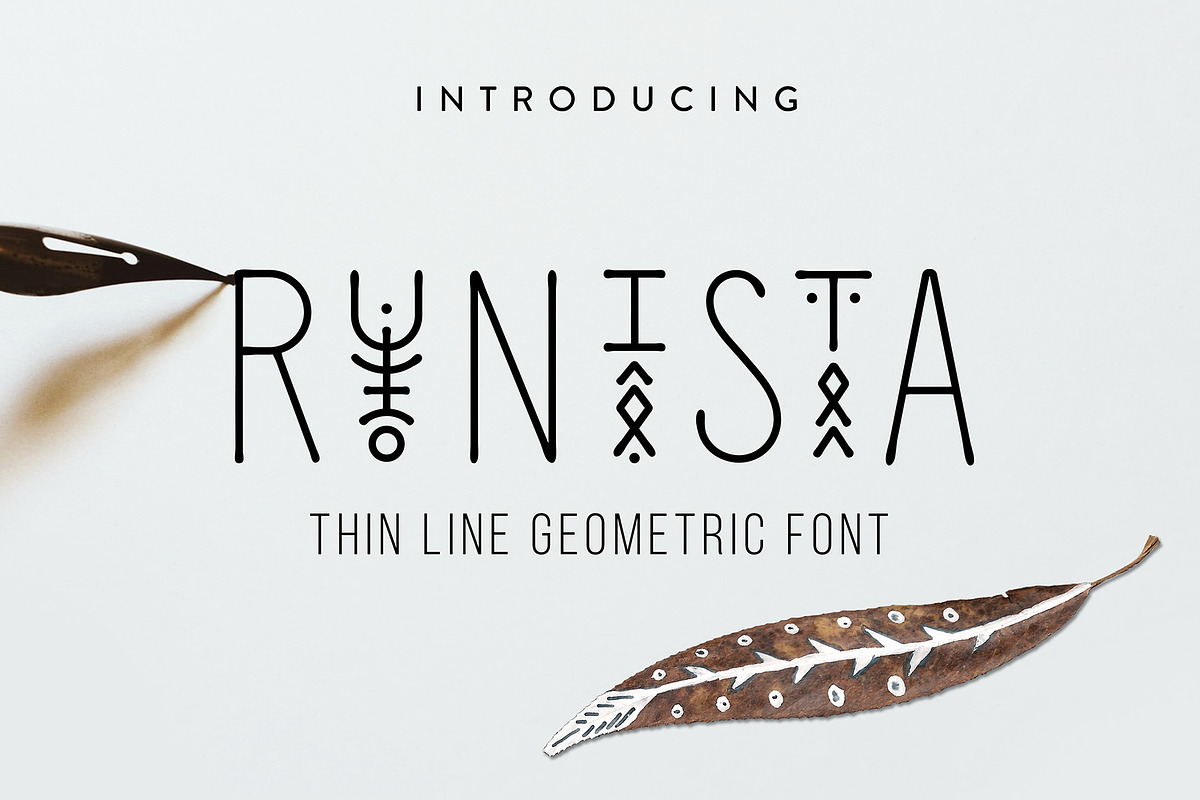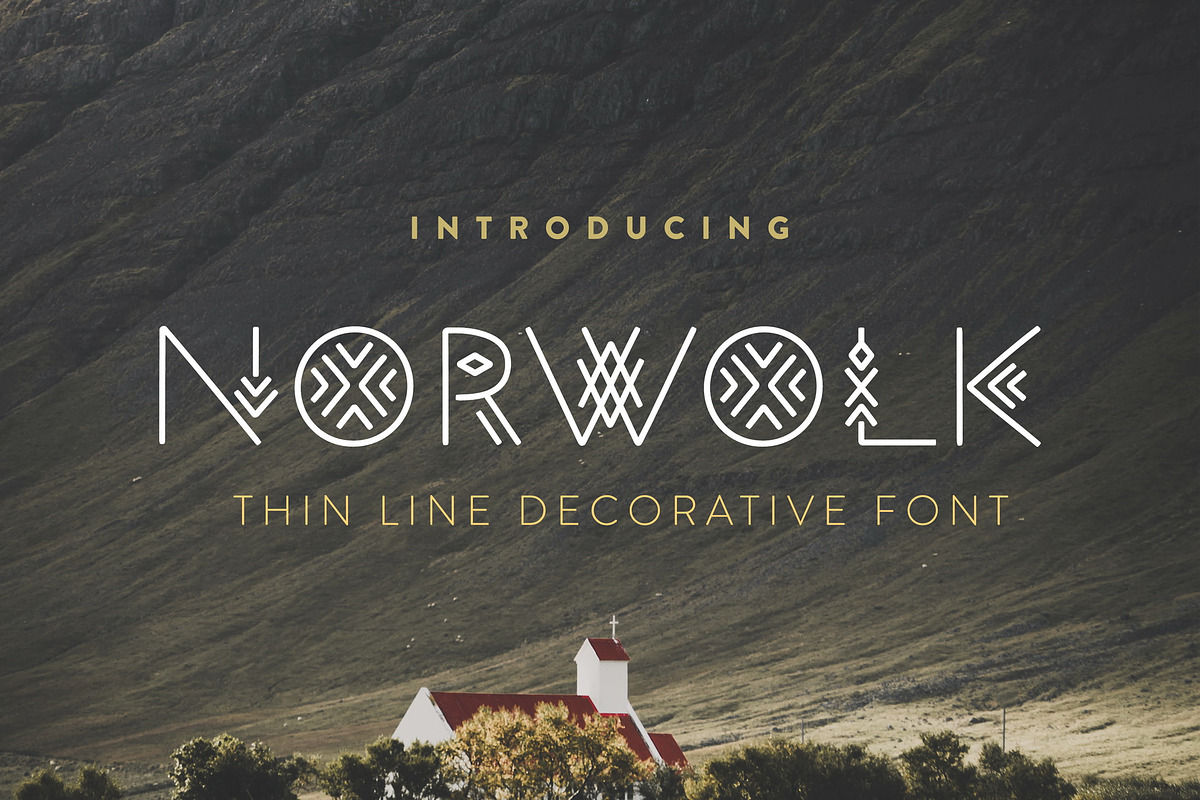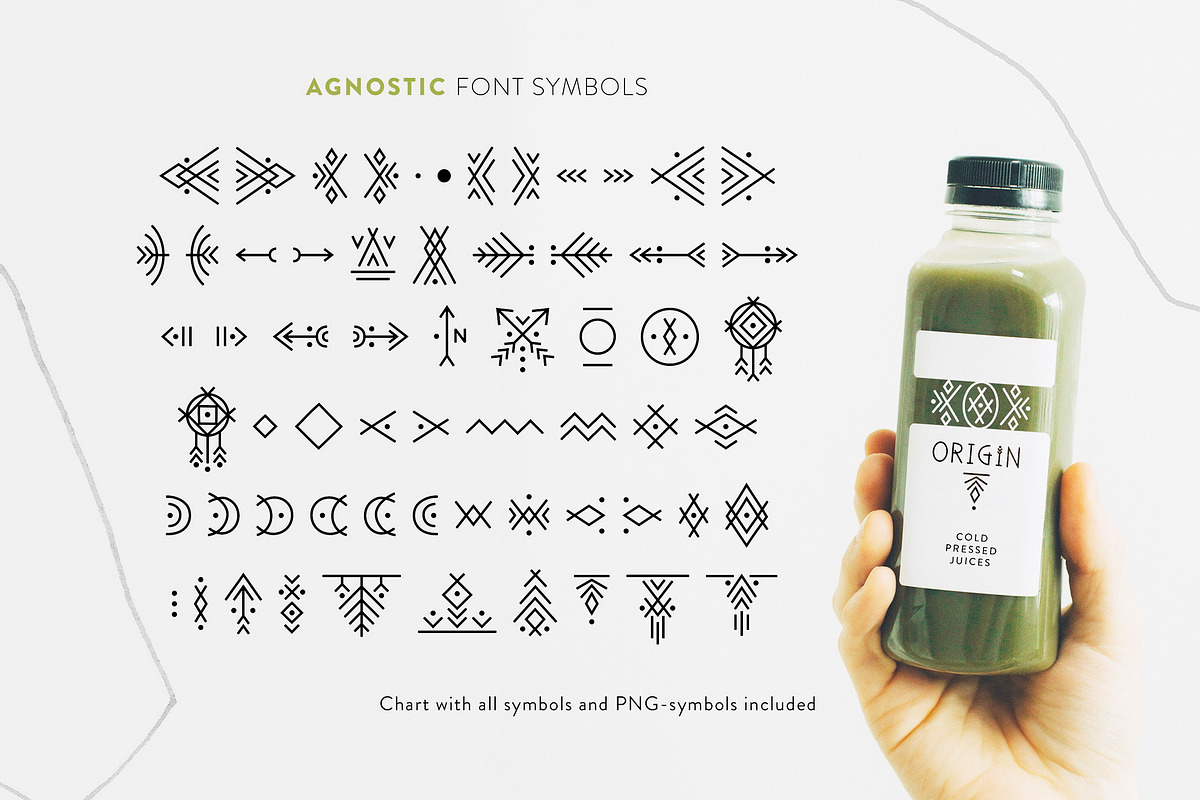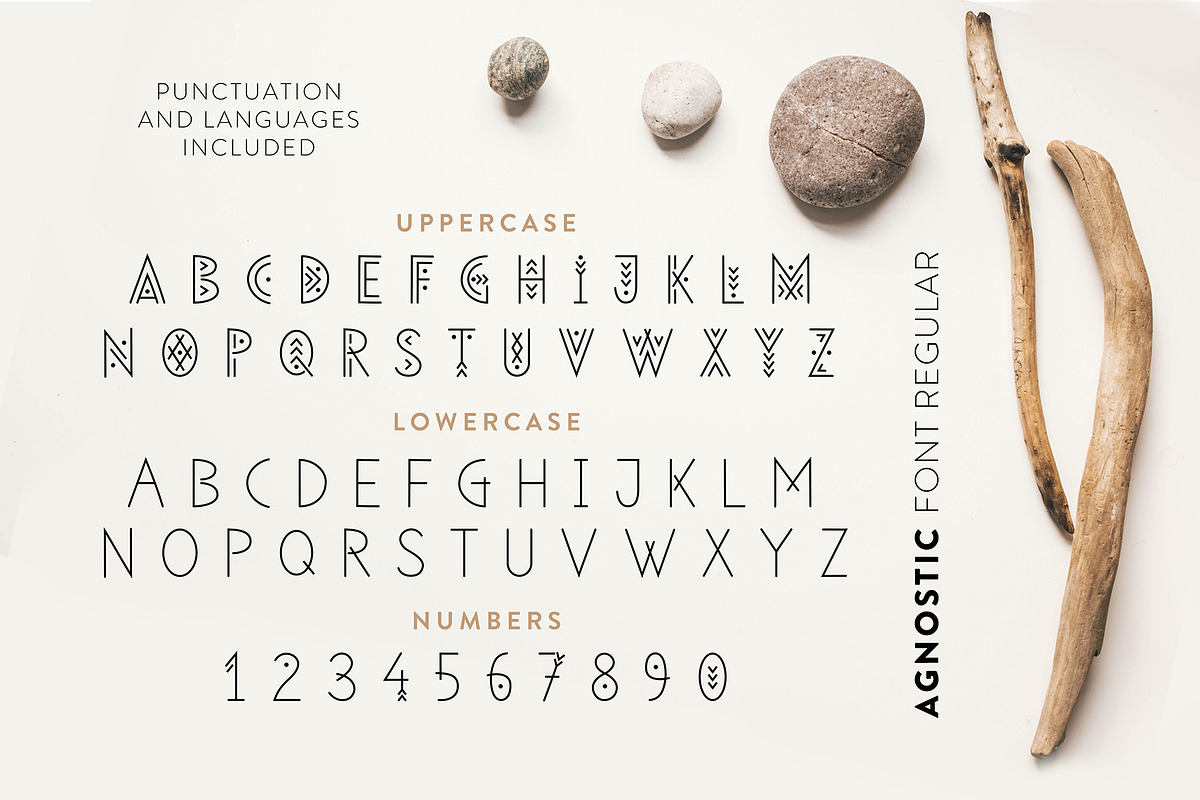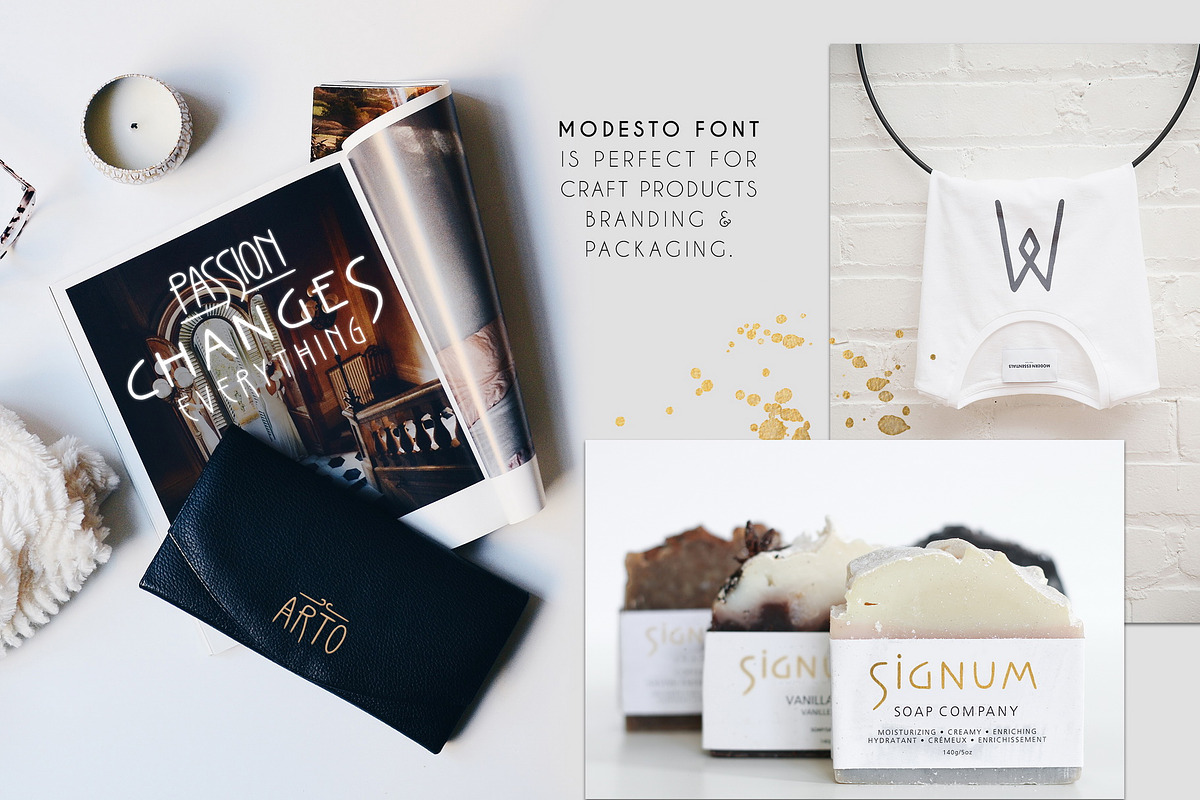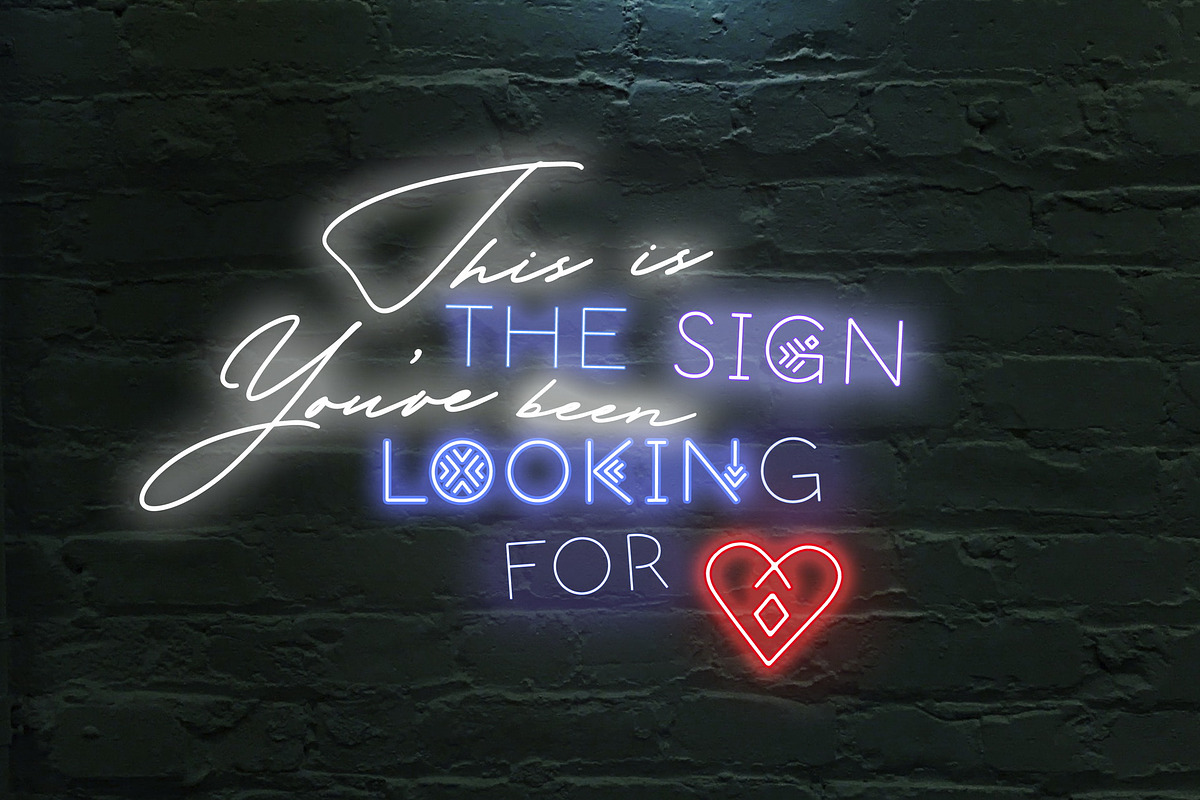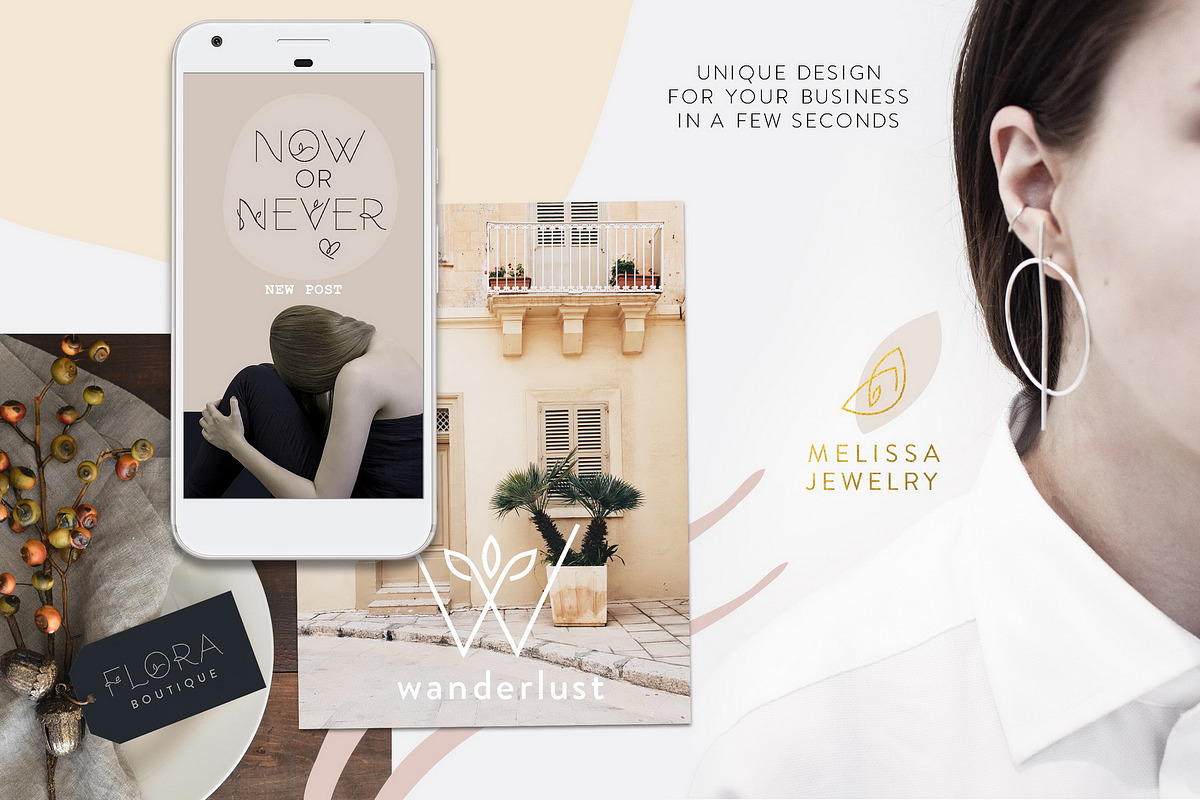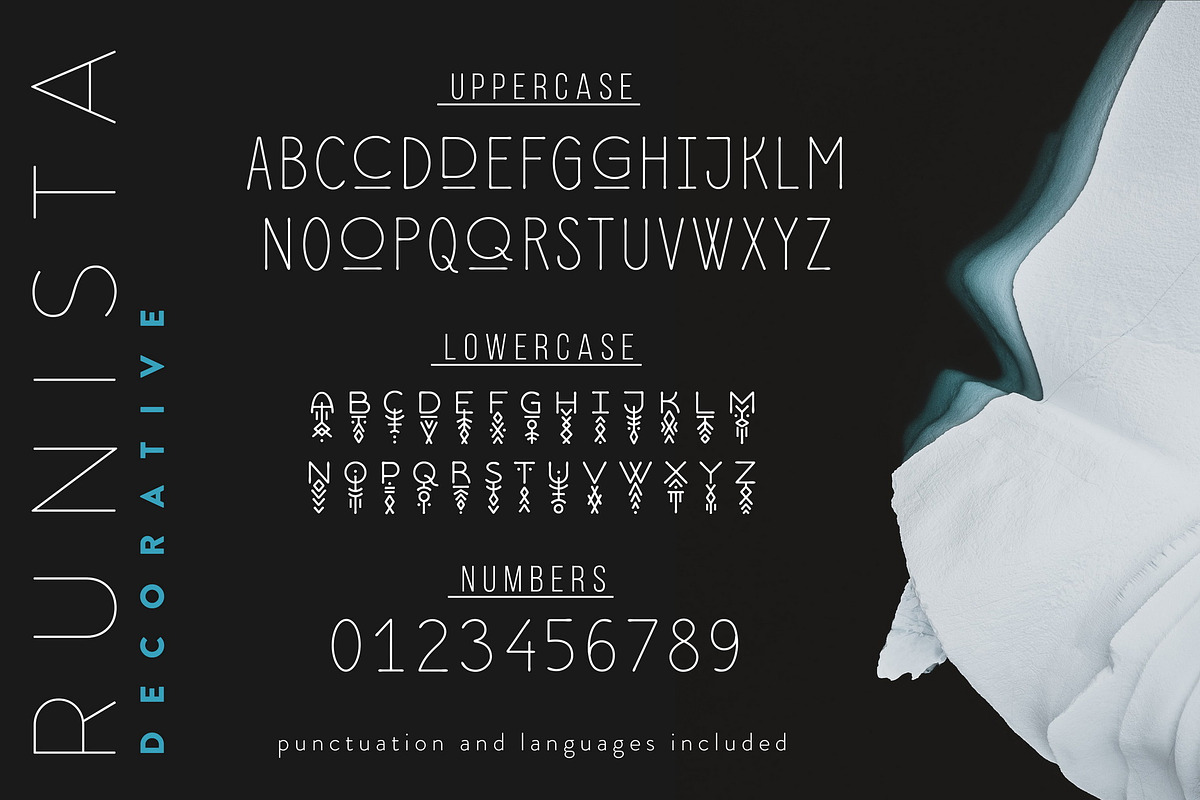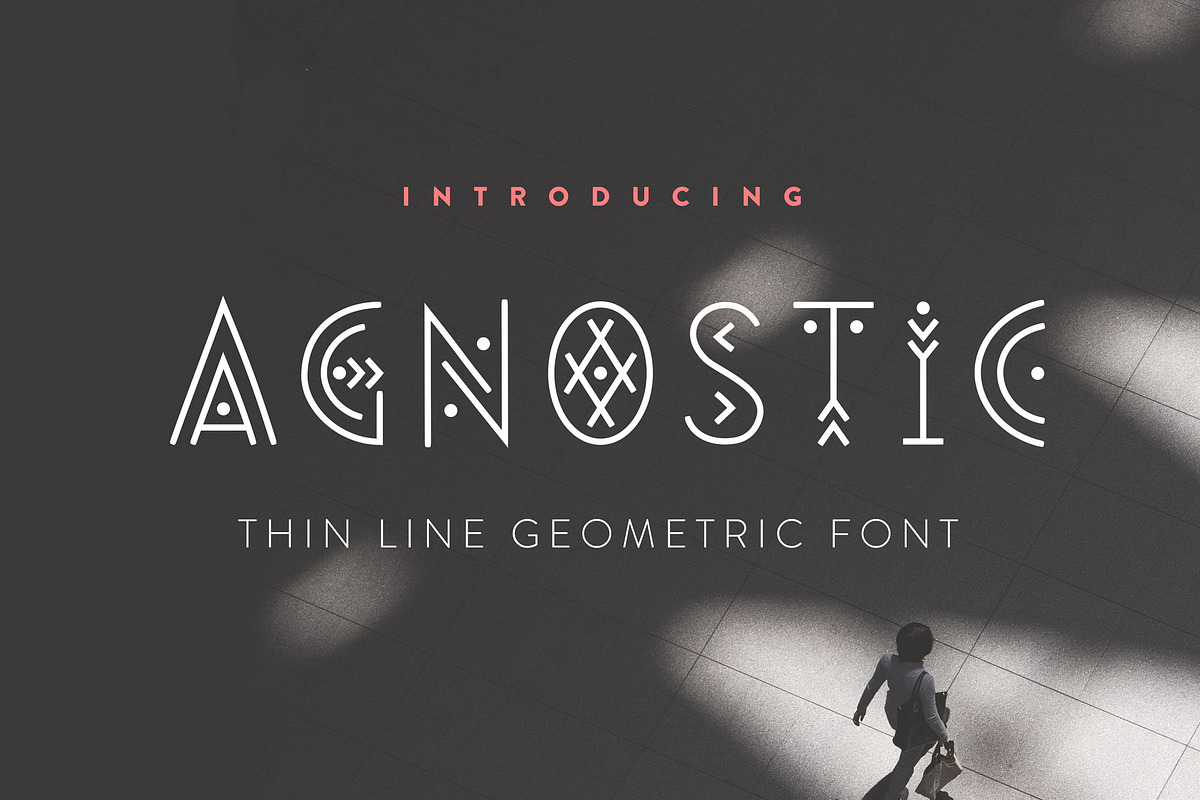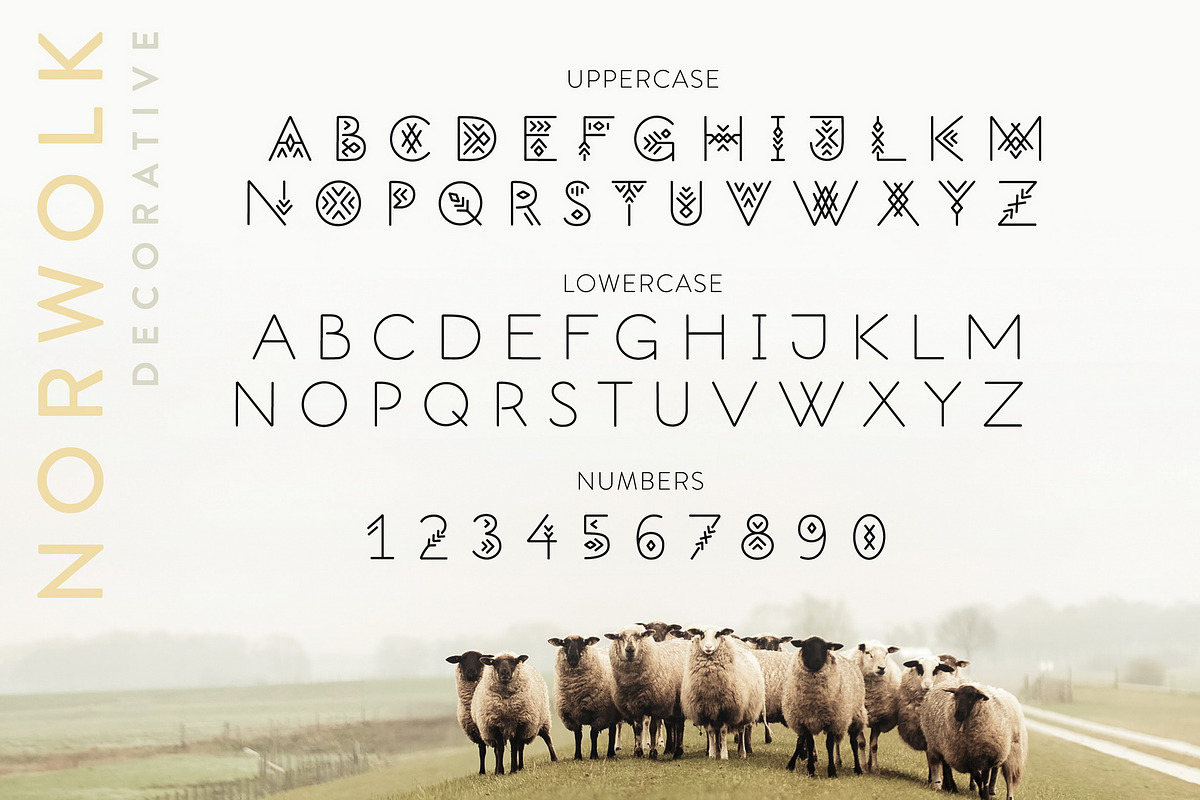
Thin Line Font Bundle: 7 in 1
The bundle includes modern thin line fonts in geometric, tribal, floral and art-deco styles and additional symbol sets. The bundle includes 7 items with 15 fonts.
The fonts are suitable for lettering posters, eco-friendly and minimalistic art, social media design and photo overlays. The fonts work great for craft products branding and packaging (organic cosmetics and food, jewelry, handmade soap ect.) Also use individual letters and symbols to create logos and monograms.